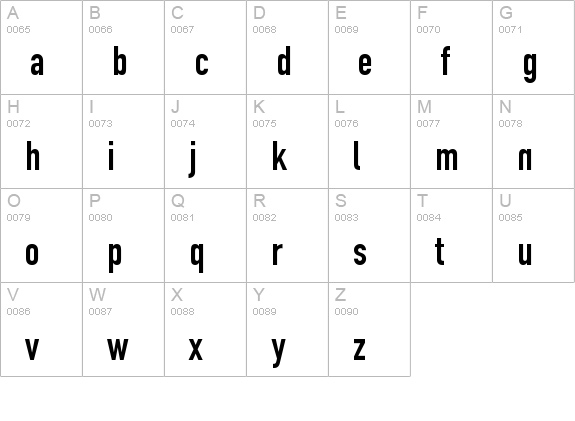
Reznor Downward Spiral Font Details
The Reznor Downward Spiral font is a visually striking typeface that perfectly captures the essence of darkness and intensity. Inspired by the iconic album cover of Nine Inch Nails' "The Downward Spiral," this font exudes a sense of raw emotion and edginess. Its sharp and angular letterforms create a bold and powerful impact, making it perfect for projects that require a strong and captivating aesthetic. What makes the Reznor Downward Spiral font even more appealing is the fact that it is freely available for download at FontsMarket.com. This means that you can easily access and utilize this incredible font in your design projects without any cost. Whether you're a graphic designer looking to add an element of intensity to a poster, a musician seeking a unique font for album artwork, or a writer aiming to bring a dark and mysterious vibe to your novel cover, the Reznor Downward Spiral font is the ideal choice. With its free availability, you can explore endless possibilities with this font, allowing your creativity to flourish without any constraints. The Reznor Downward Spiral font is a powerful tool that will undoubtedly elevate your designs and captivate your audience. So why wait? Head over to FontsMarket.com and download this exceptional font today, and let your imagination run wild with the mesmerizing and captivating Reznor Downward Spiral font.